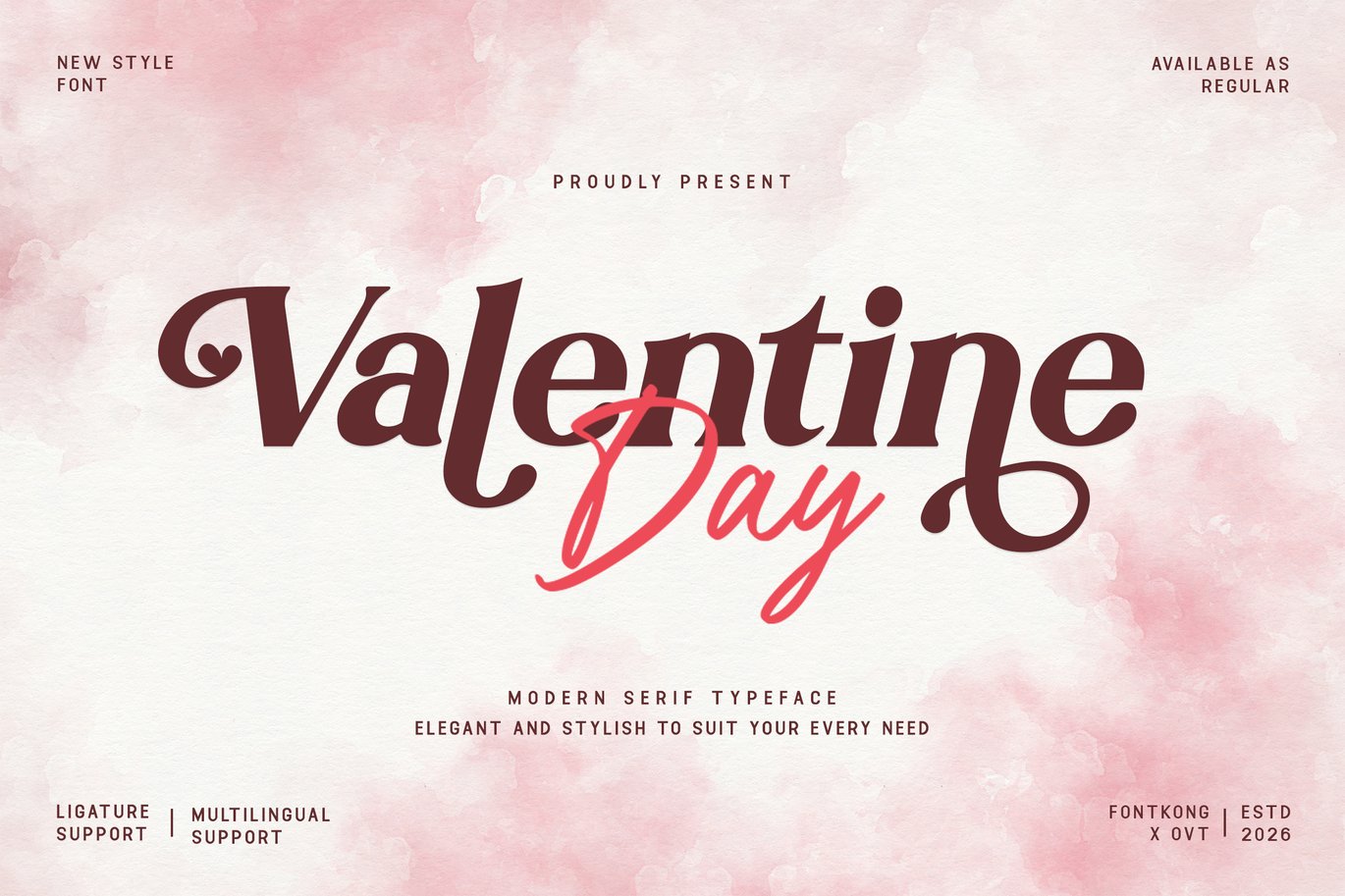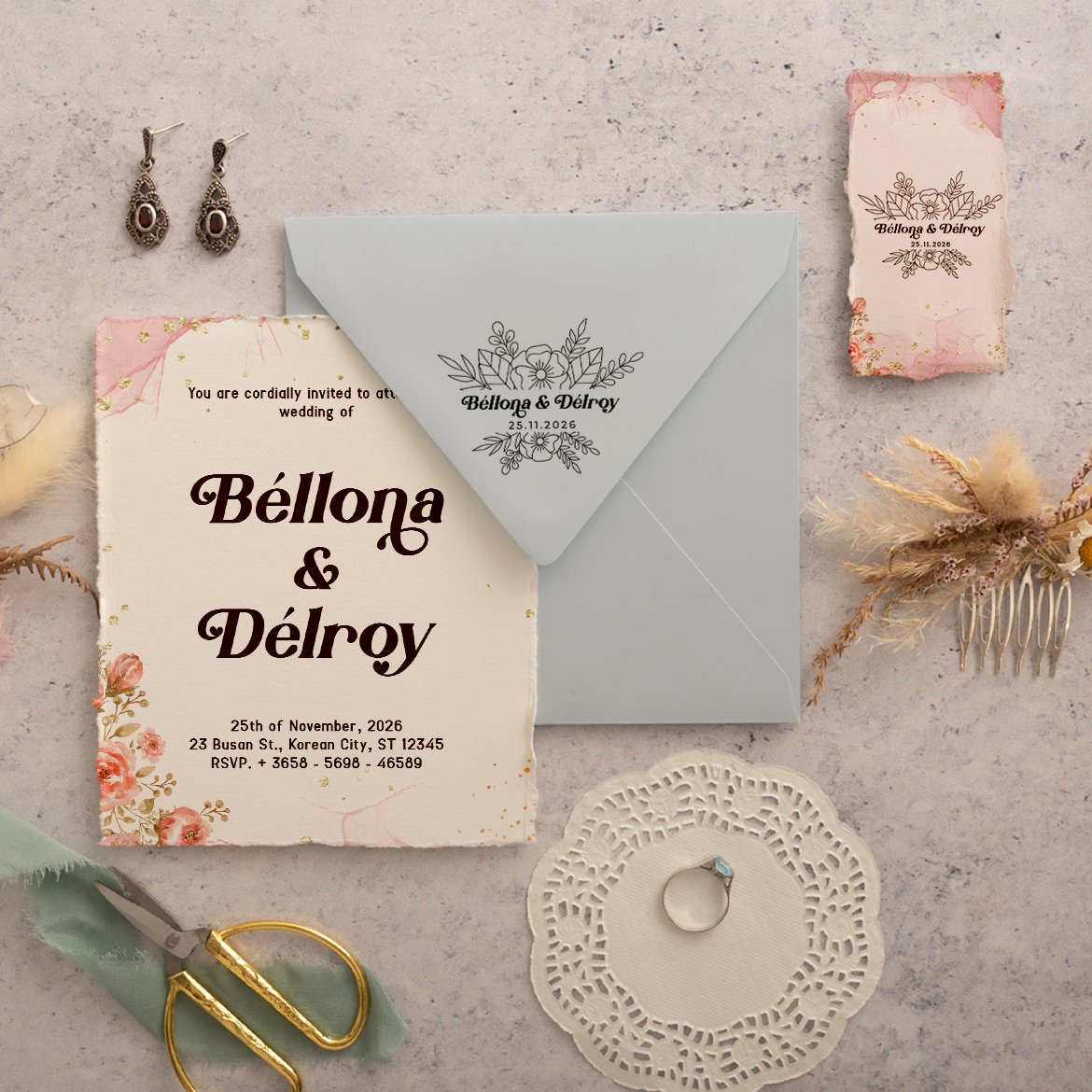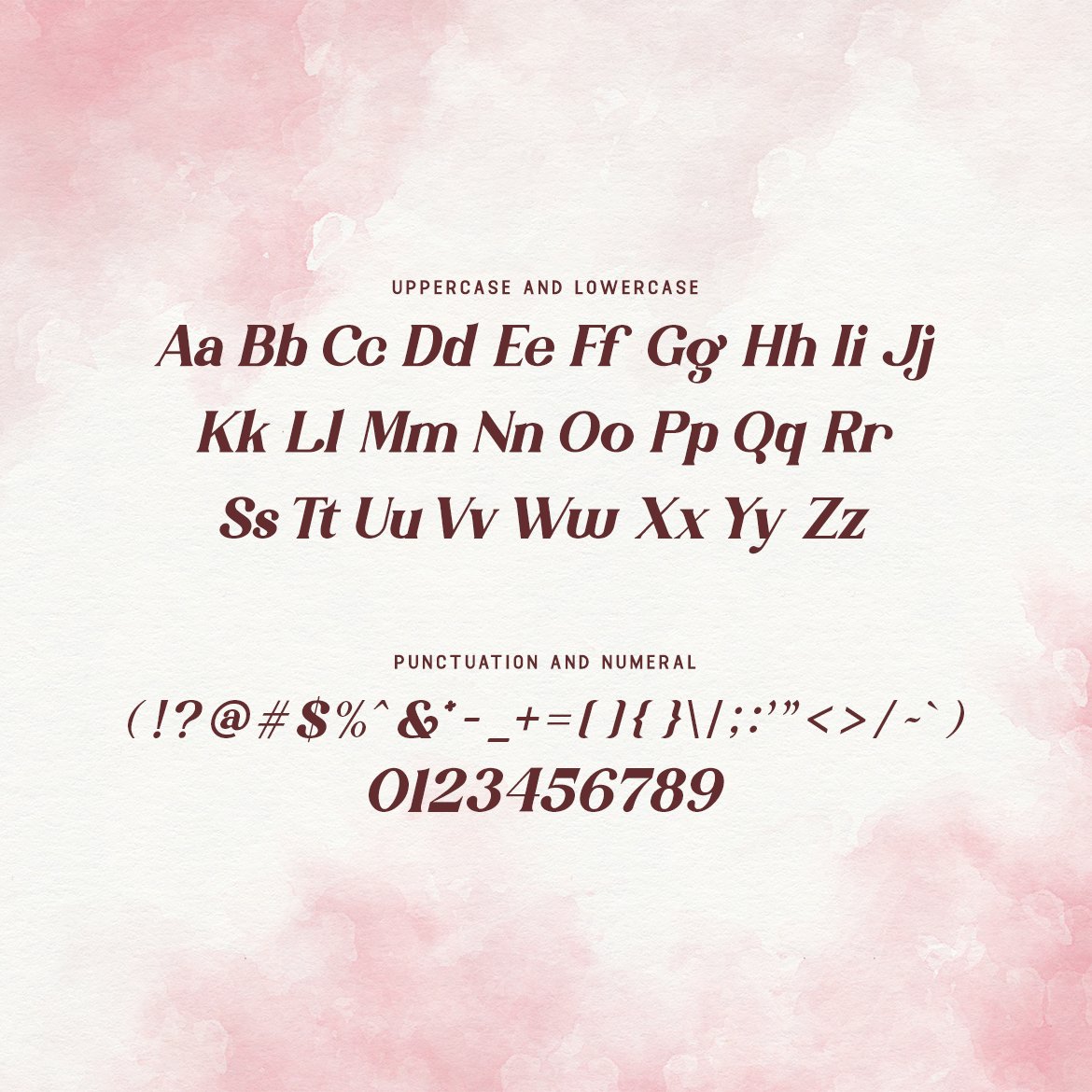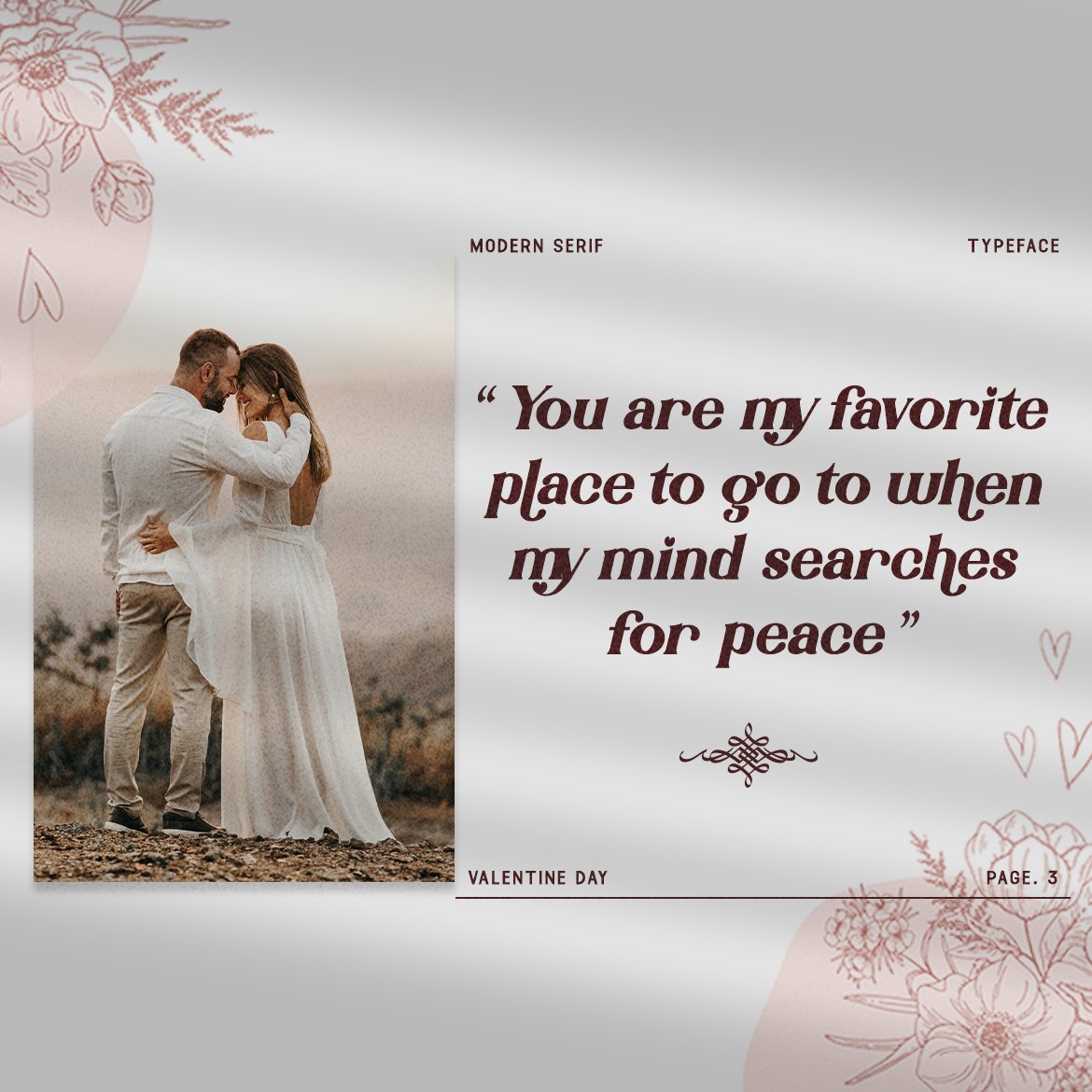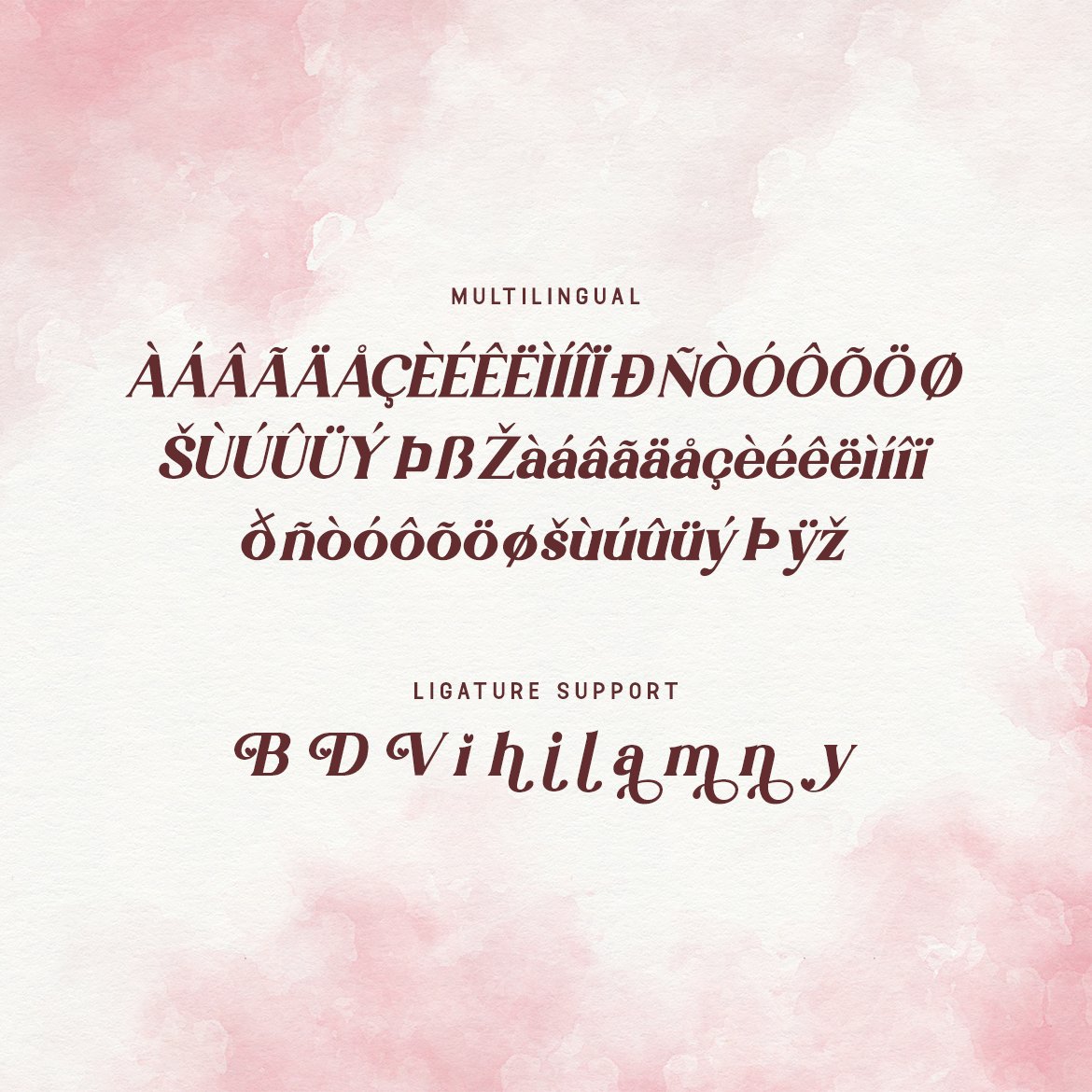
Valentine Day – A Modern Serif Typeface
Valentine Day is a charming and elegant modern serif typeface designed to bring a touch of romance to your design projects. With its delicate curves and refined serifs, Valentine Day is perfect for wedding invitations, love letters, greeting cards, and branding that seeks to evoke feelings of love and sophistication. This font combines classic serif elements with a contemporary flair, making it a versatile choice for both traditional and modern designs.
Crafted with attention to detail, Valentine Day features well-balanced letterforms that ensure readability and aesthetic appeal. Its graceful design makes it suitable for both headlines and body text, adding a romantic and stylish touch to your work. The font’s extensive character set and multilingual support make it an ideal choice for designers aiming to create heartfelt and inclusive content.
Celebrate love and elegance with Valentine Day, a font that embodies the spirit of romance and modern design. Its unique style and versatility make it a must-have for any designer looking to create memorable and beautiful work. Elevate your designs with Valentine Day and capture the essence of romance in every project.